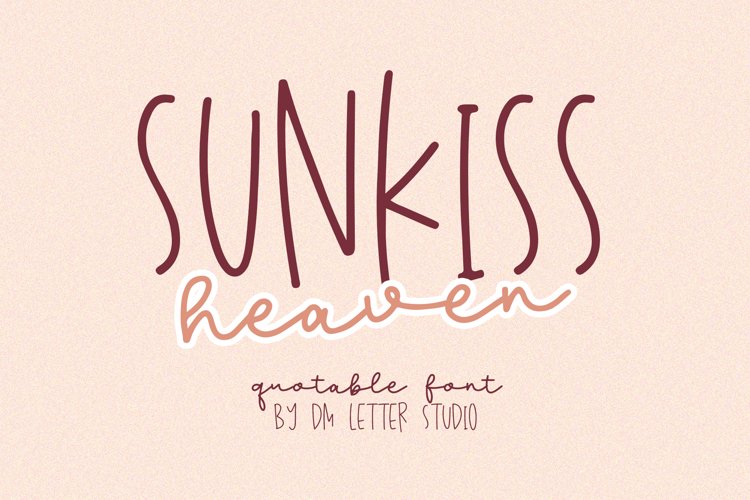
Sunkiss heaven
Sunskiss heaven is a warm, friendly quotable handwritten font. Cute and versatile for any purpose.
Uppercase for sans serif and lowercase for script. Beautiful and timeless font style.
- Uppercase ( sans serif )
- lowercase ( script )
- numbers
- symbols